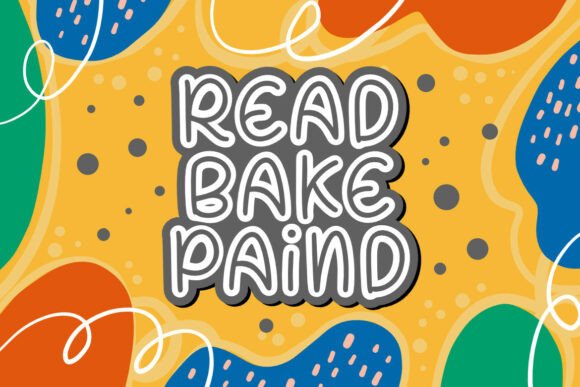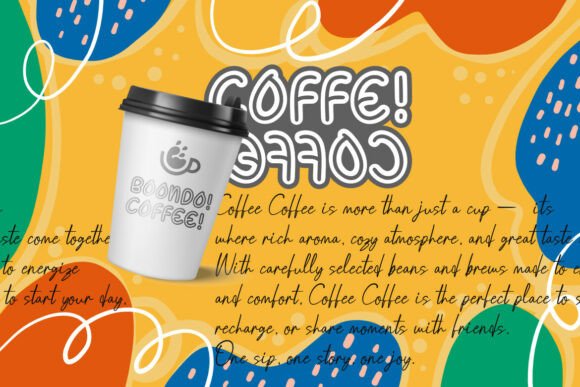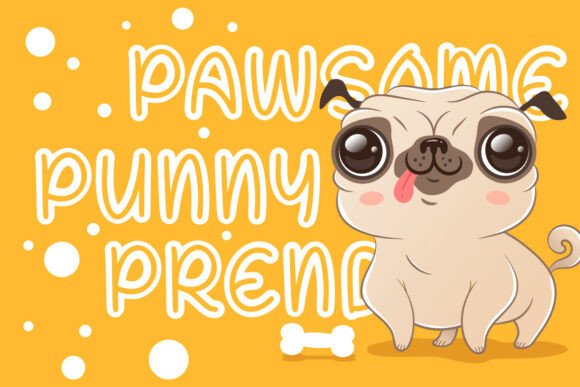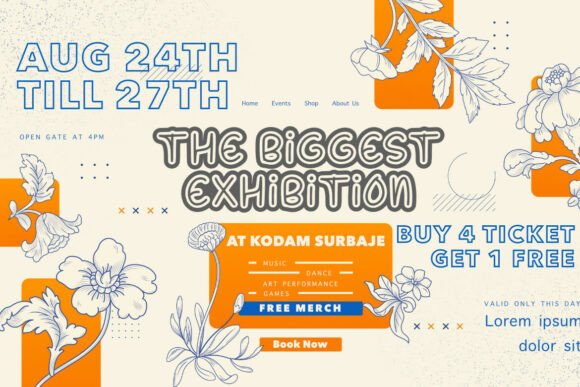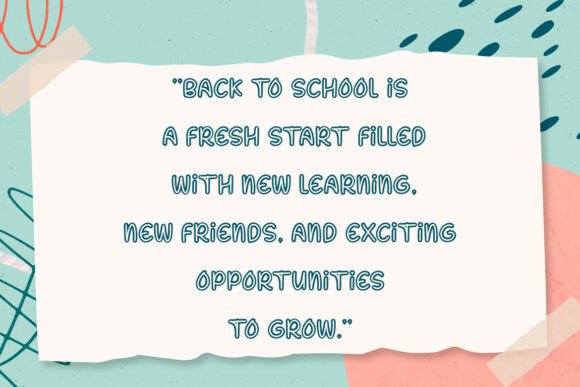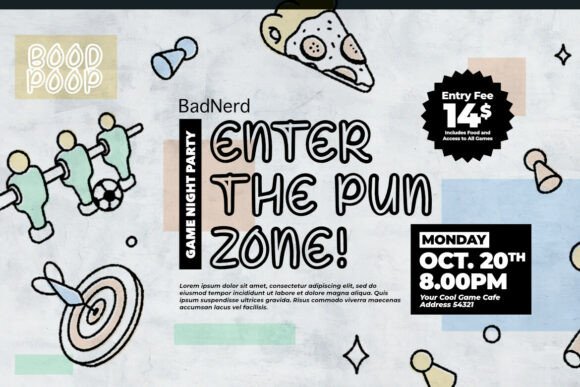
Introduction to Raboon Font
Raboon is a playful handwritten outline font with a bold and fun style.
Its casual strokes and outlined characters make it perfect for cheerful and creative designs Ideal for kids’ themes, branding, posters, packaging, and social media graphics, Raboon adds a friendly and eye-catching touch to any project.
Key Features of Raboon Font
Why Choose Raboon Font?
Raboon Font offers exceptional quality and versatility, making it a valuable addition to your design toolkit. Whether you’re creating for personal projects or commercial use, Raboon Font delivers professional results.